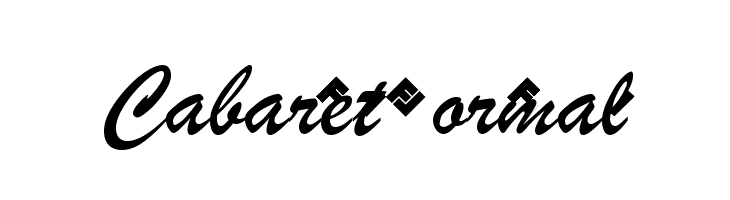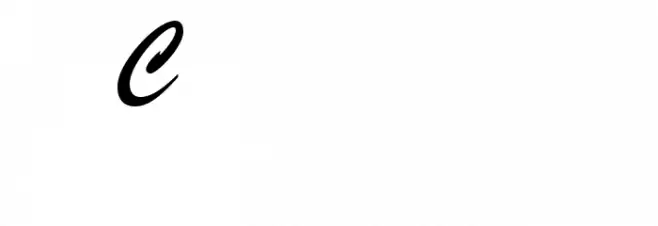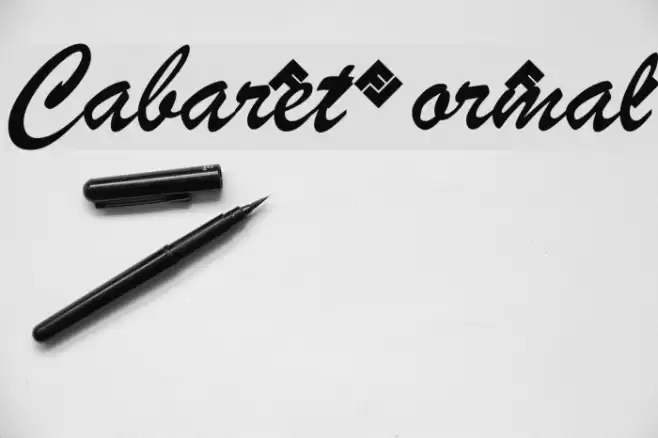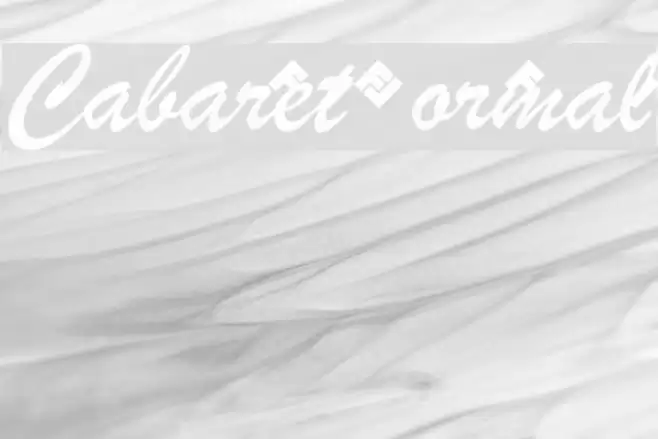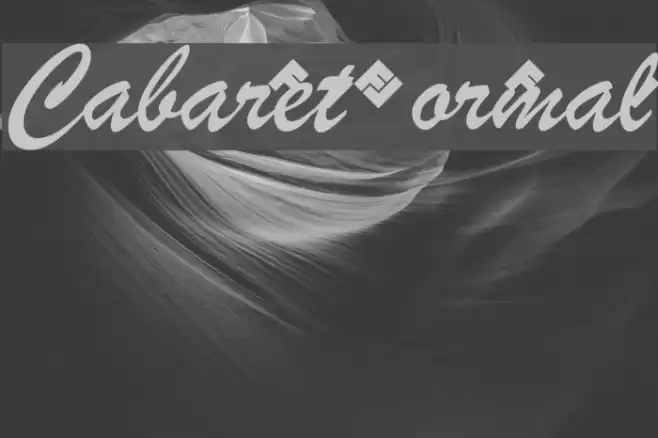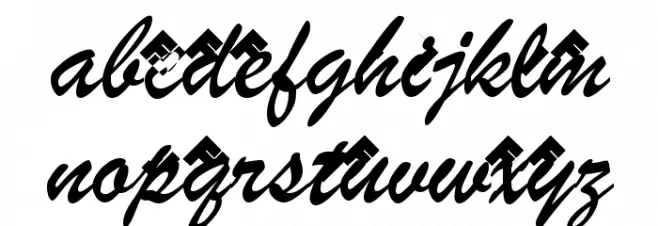
Cabaret Normal Font
Cabaret Normal Description
This font features a flowing, cursive style with elegant, sweeping strokes that give it a sophisticated and artistic appearance. The characters are connected, creating a seamless and fluid look that is both classic and stylish. The uppercase letters are bold and prominent, while the lowercase letters maintain a consistent flow, enhancing readability. The font's design is reminiscent of traditional calligraphy, making it suitable for projects that require a touch of elegance and flair. Its unique style makes it stand out, perfect for creative and decorative uses.
| Overall Style | Classic |
| Use Case | Logos, Invitations, Decorative text |
| Proposed Projects | Ideal for wedding invitations, greeting cards, branding, and decorative signage. |